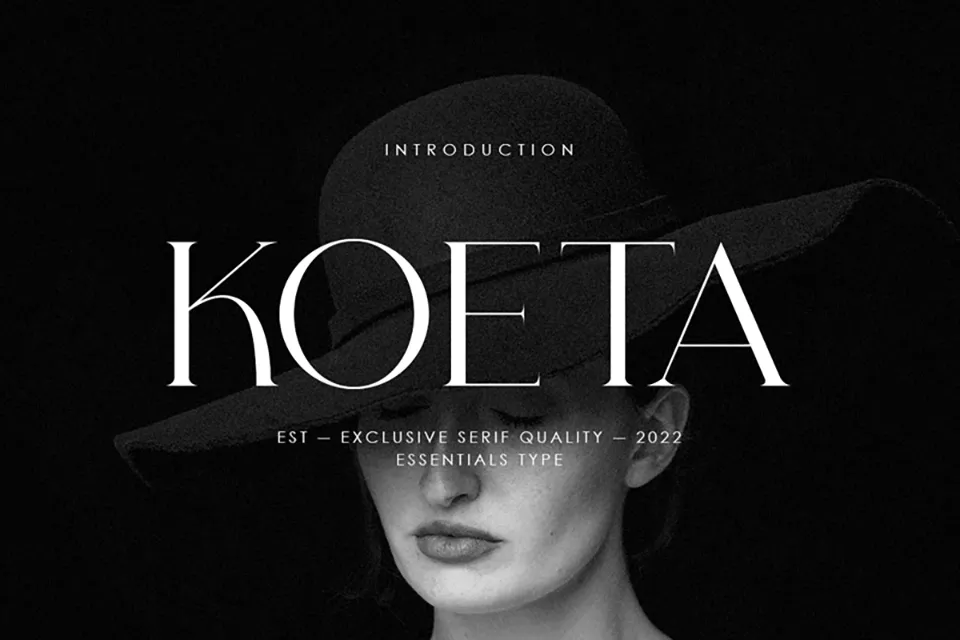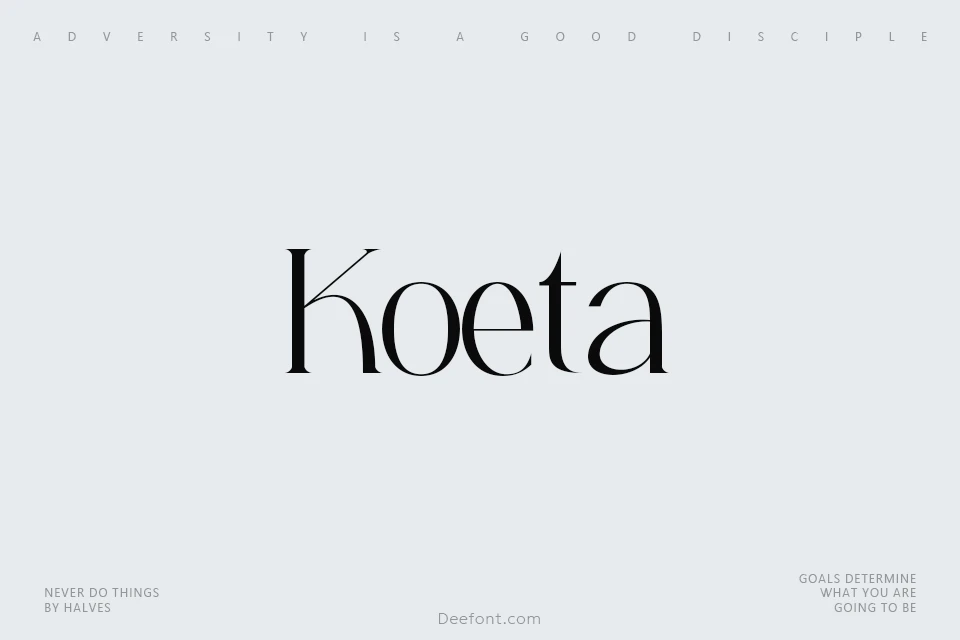
Koeta Font
Koeta Font is a modern serif typeface blending classic elegance with minimalist sophistication, designed by Gholib Tammami. Its sharp, clean lines and refined serifs exude timeless versatility, equally suited for high-end editorial layouts, luxury branding, and digital interfaces. The font’s balanced proportions and subtle angularity lend a structured yet approachable aesthetic, ideal for magazine headlines, packaging, or boutique logos. While rooted in traditional serif principles, Koeta embraces contemporary simplicity through uncluttered forms and geometric undertones, ensuring legibility across print and web. Free for personal projects like invitations or craft designs, it requires commercial licensing for professional use in advertising, apparel, or web fonts. A harmonious choice for designs demanding quiet confidence over overt ornamentation.